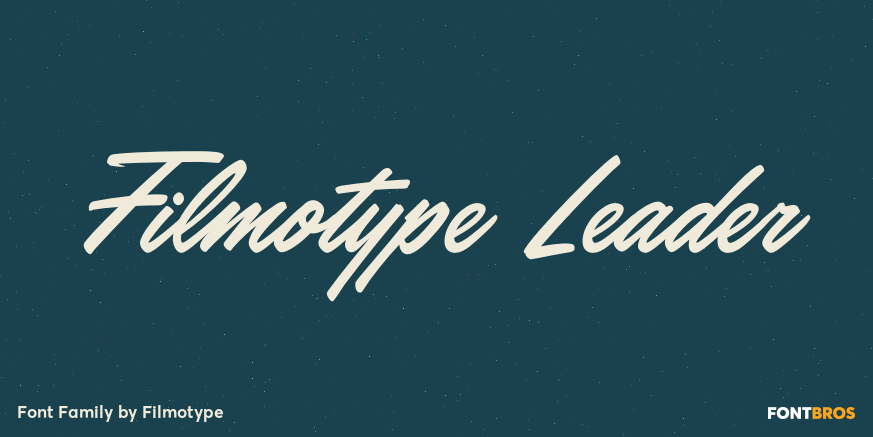
Filmotype Leader
About Filmotype Leader
Introduced by Filmotype in the early 1950s, Filmotype Leader was inspired by speedy sho-card bold lettering styles prominently featured in automotive advertising and editorial designs of the late 1940s and early 1950s to express speed and urgency. Remastered…